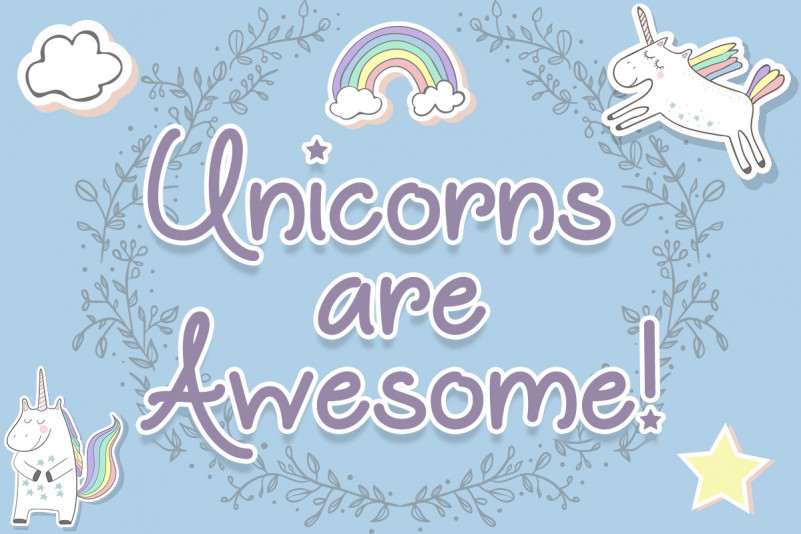
Unicorns are Awesome Font
Introducing Unicorns are Awesome Font. Unicorns are Awesome is a very youthful typeface. You can applied to all typography with mix and match pairs of letters to fit your own designs or make some your best/favourite quotes to your picture.